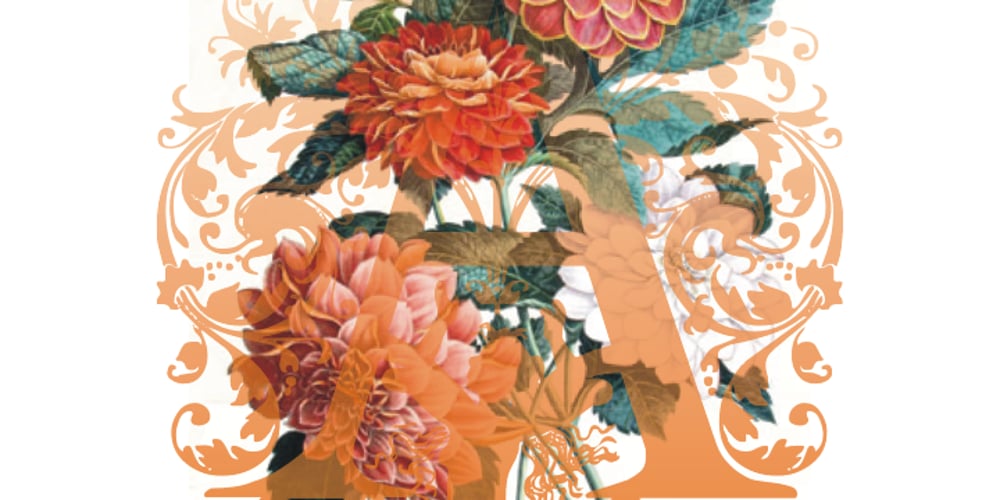
Victorian Ornamental Capitals Font Family was designed by published by Intellecta Design. Victorian Ornamental Capitals contains 2 styles and family package options. These are the classical arabesques published in Ludwig Petzendorfer’s Schriften-Atlas. Eine Sammlung der wichtigsten Schreib- und Druckschriften aus alter und neuer Zeit nebst Initialen, Monogrammen, Mappen, Landeskarten und heraldischen Motiven fur die praktischen Zwecke des Kunstgewerbes, 1889. See Frompac 1889 Arabesques for another example of these arabesques.